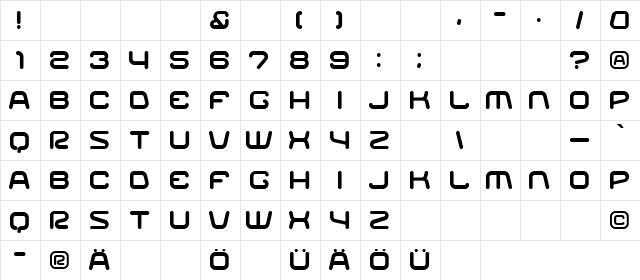
Racer Regular Font Preview
Racer Regular
Racer Regular Font Details
Design Context for Racer Typeface
Racer is a composed and adaptable typeface that performs quietly and consistently across a wide range of design contexts.